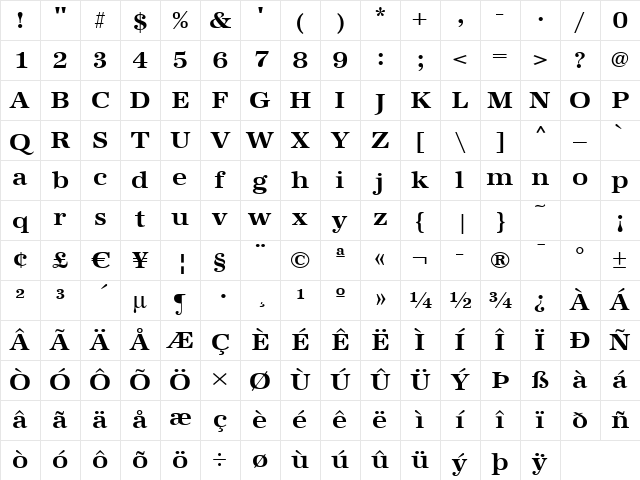
IrisBeckerExtended Bold
Design Context for IrisBeckerExtended
IrisBeckerExtended is a composed and adaptable typeface that performs quietly and consistently across a wide range of design contexts. Its bold stroke weight gives it real presence on the page.